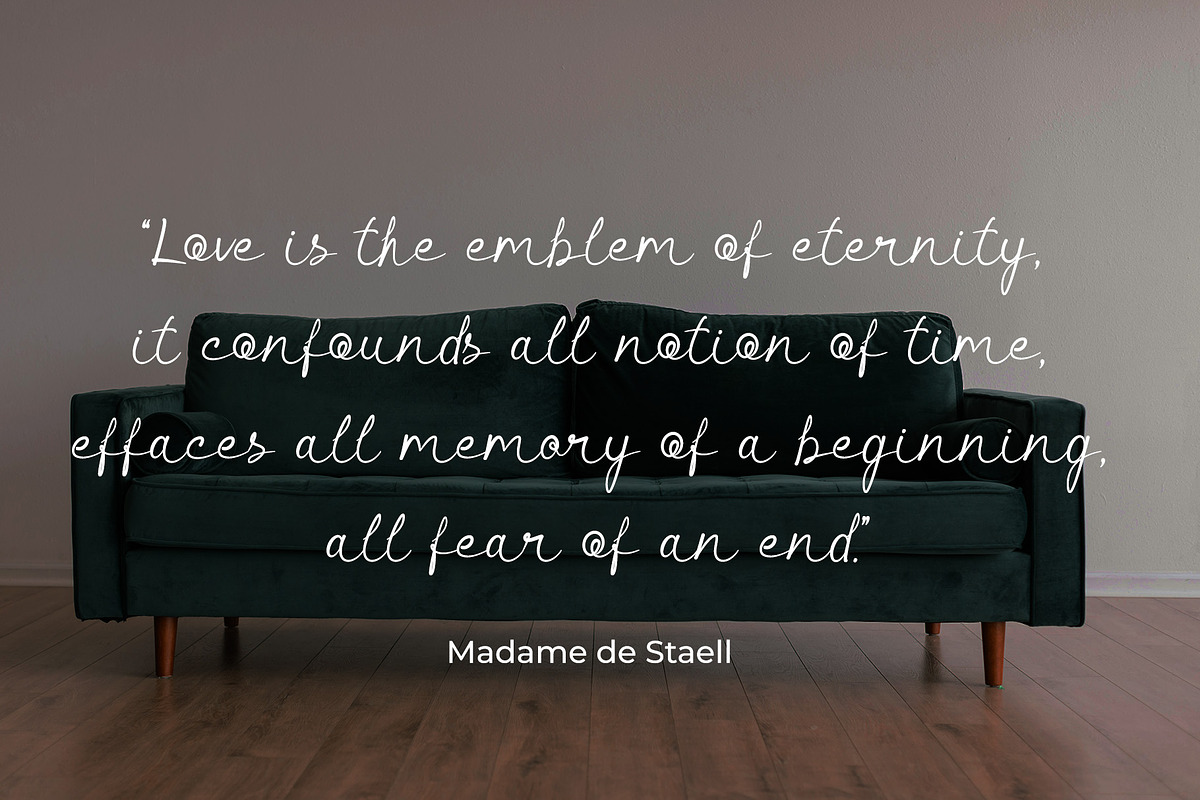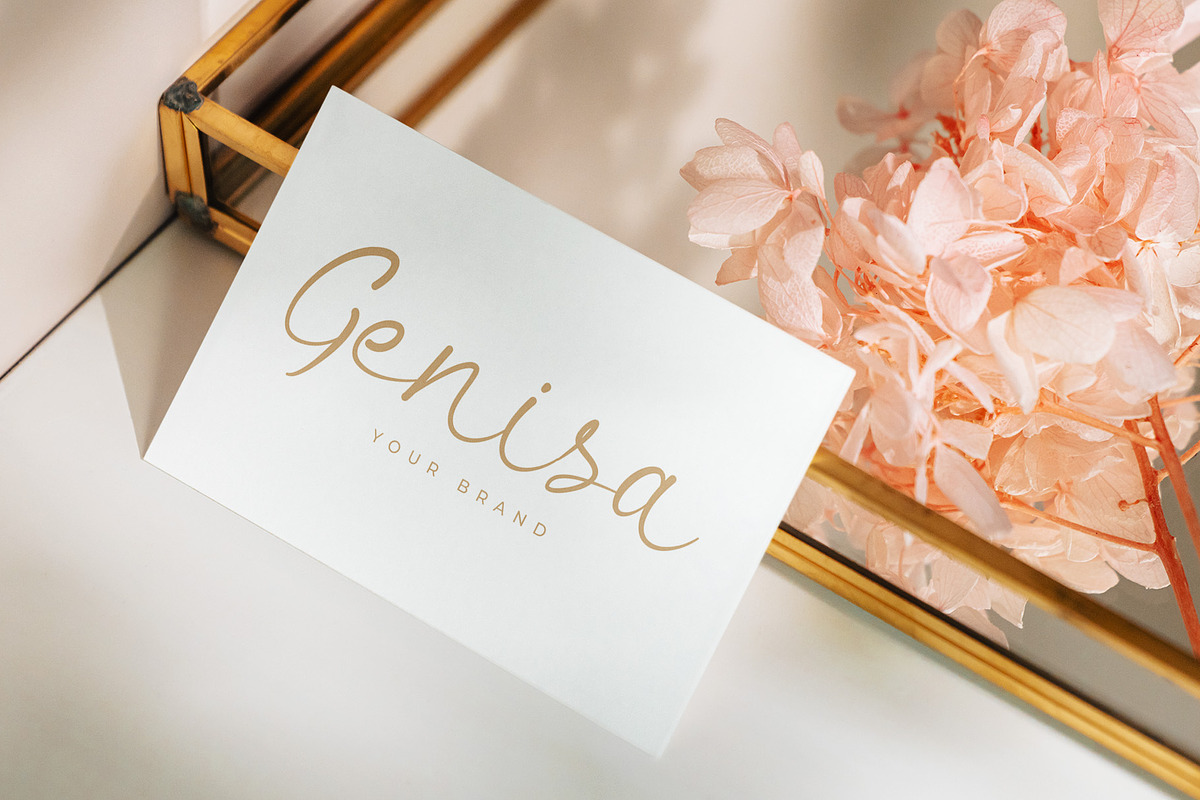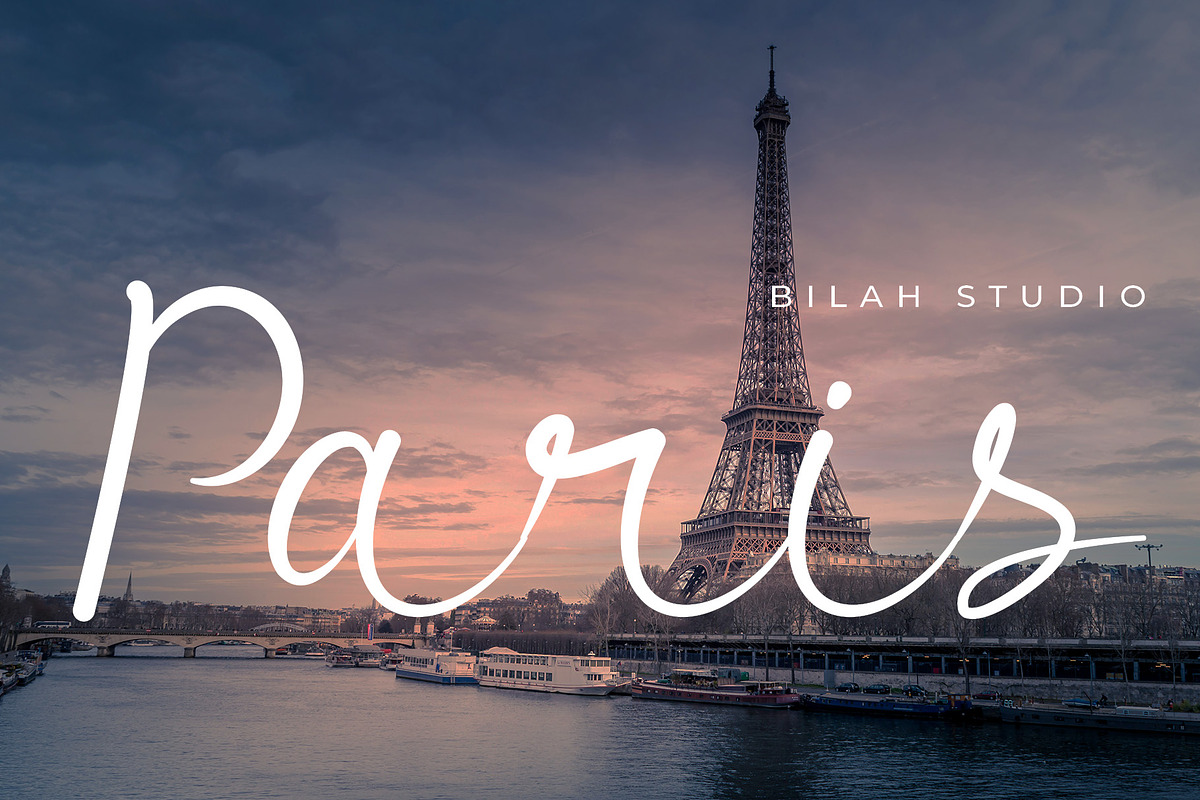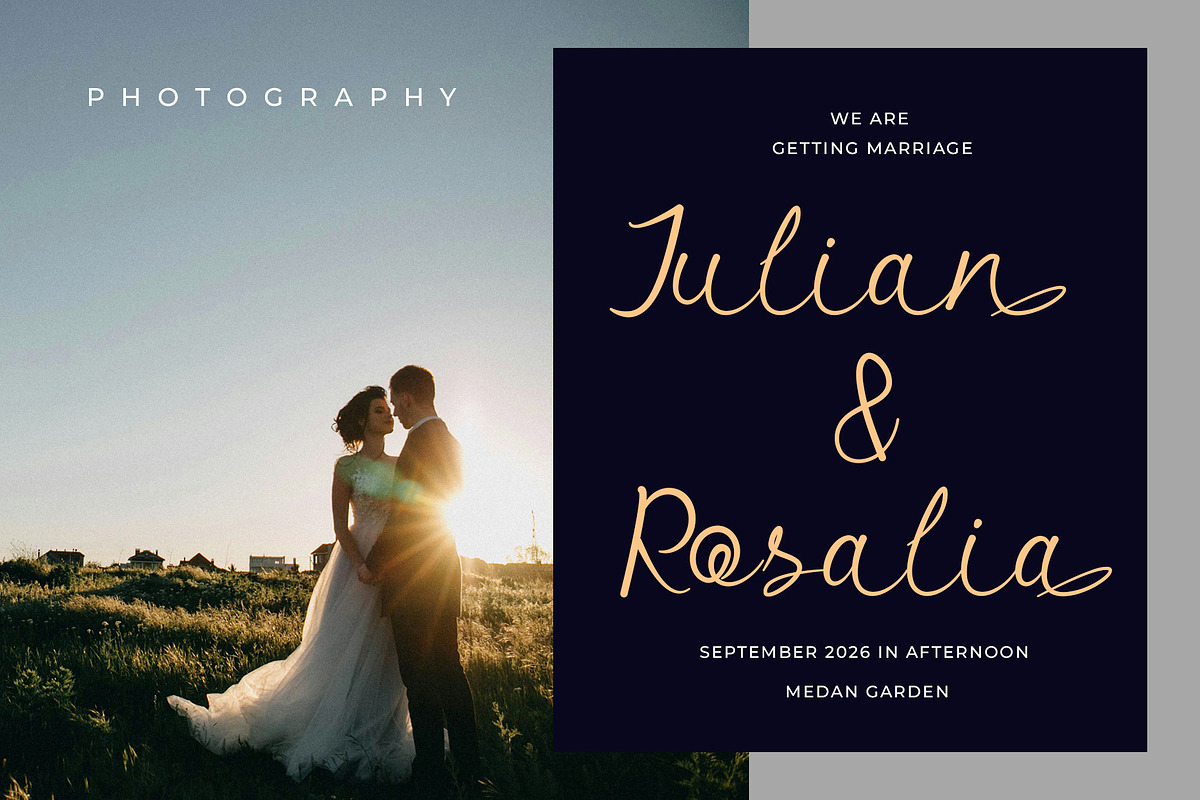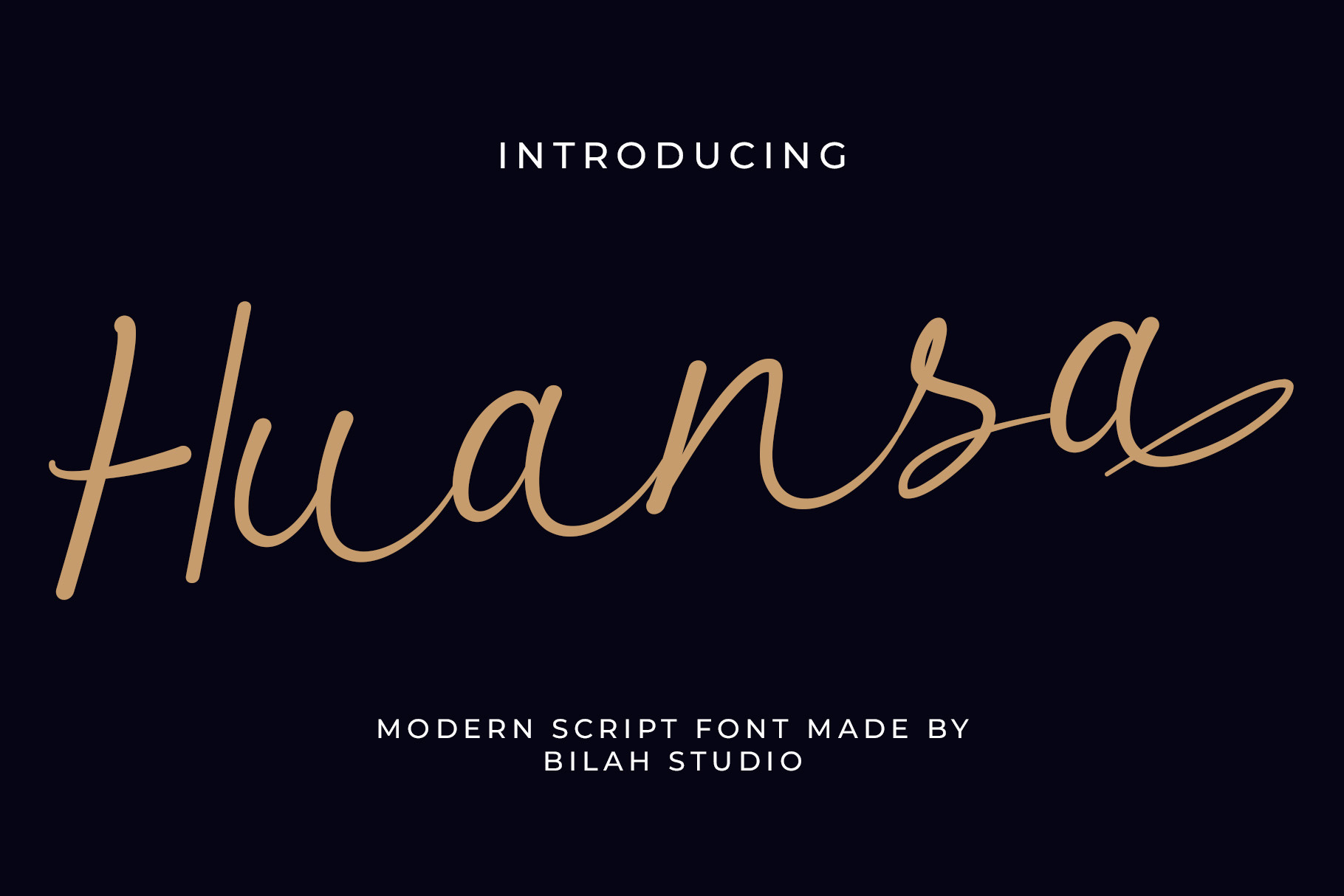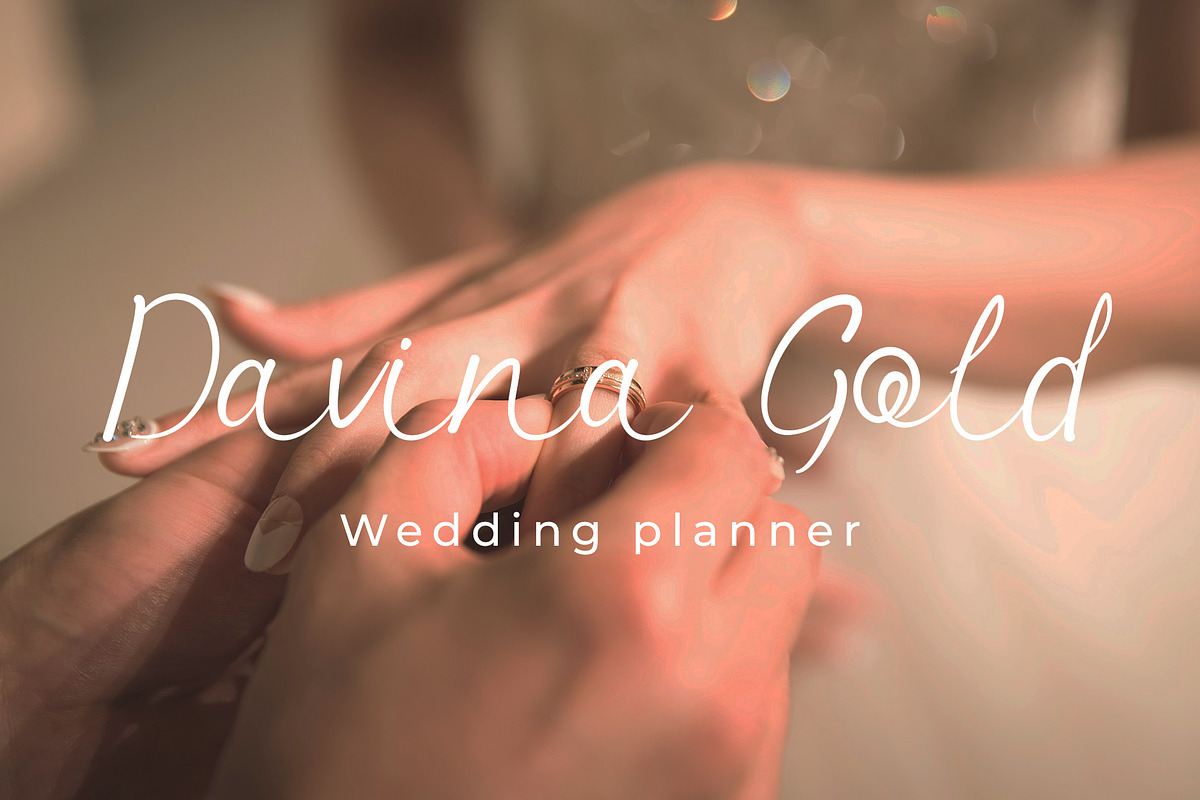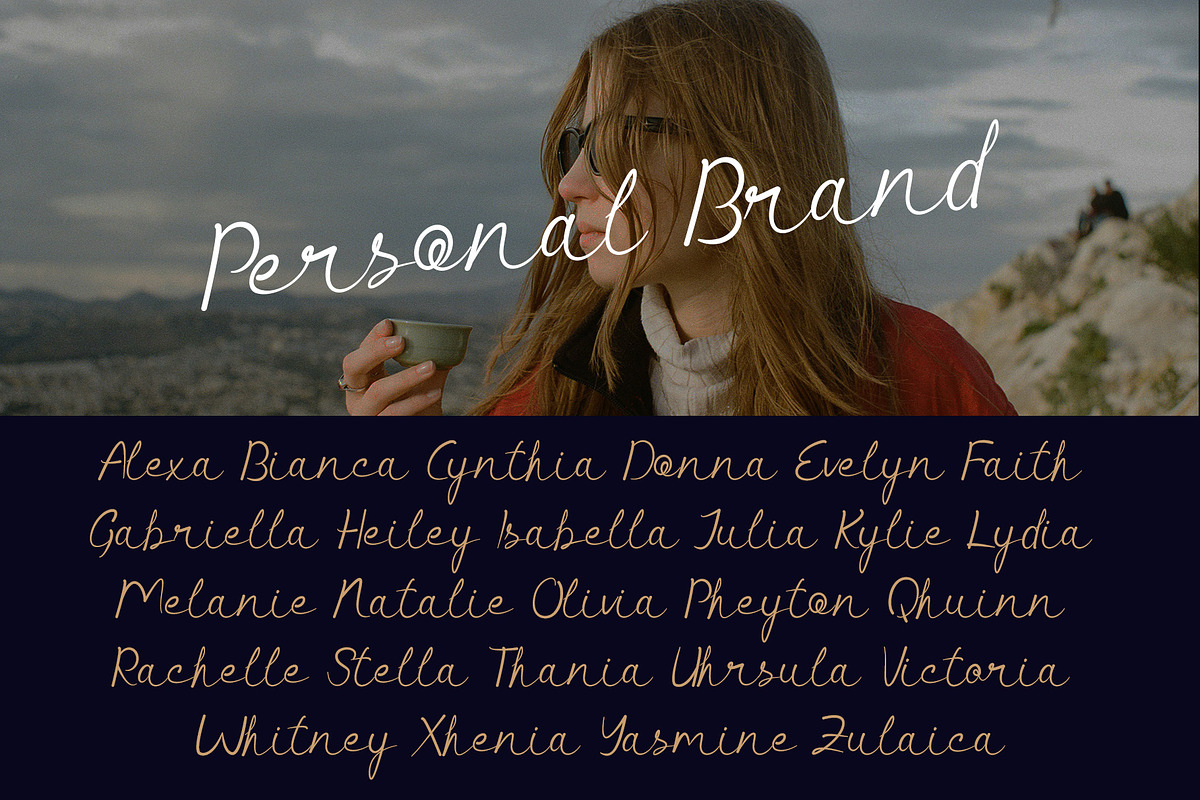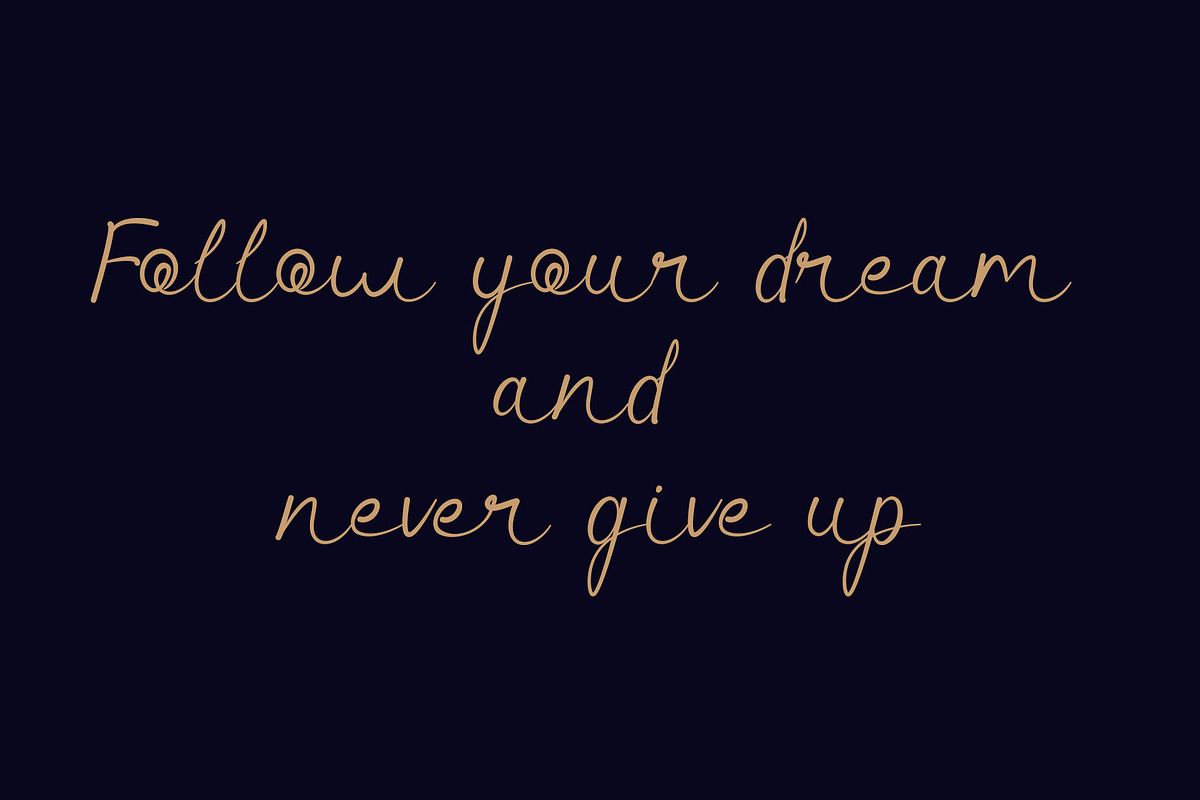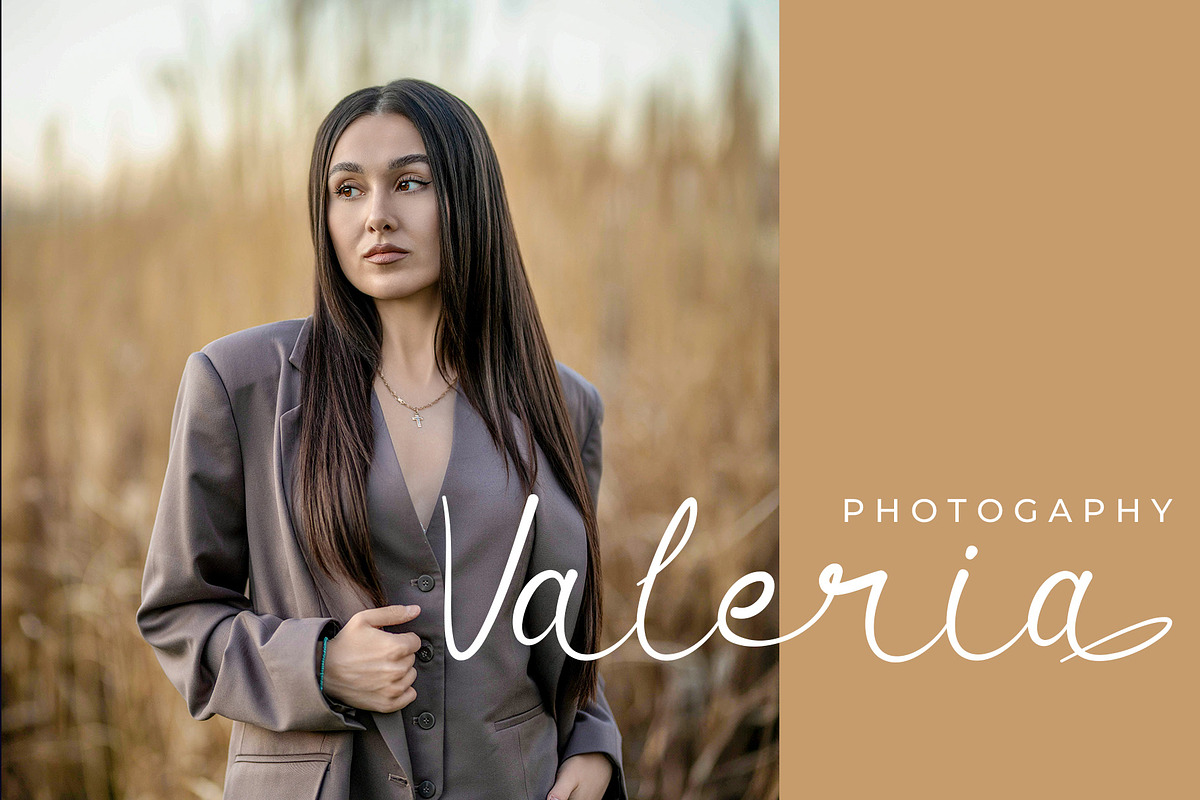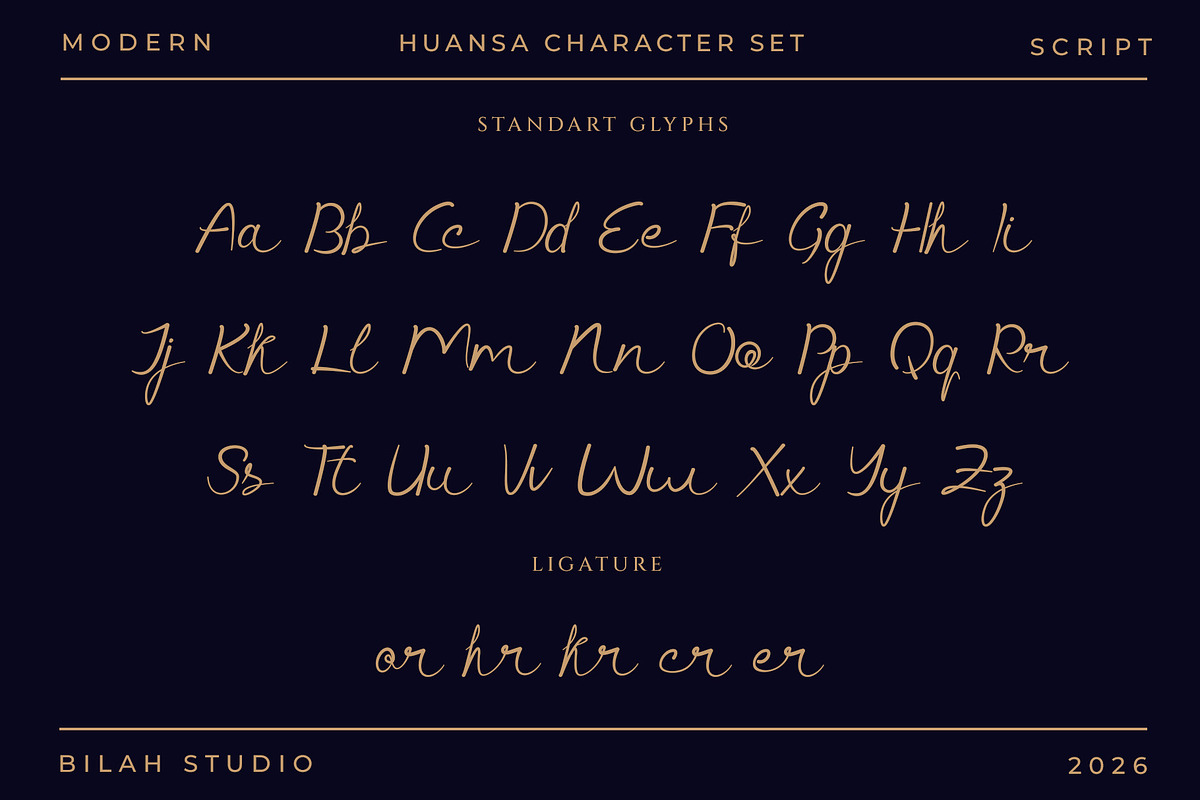
Huansa Modern Script Font
Huansa is a modern script font that exudes simplicity, elegance, and a contemporary vibe through its harmonious handwritten style. With its expressive strokes and graceful letterforms, the font creates a natural signature aesthetic that feels both personal and sophisticated.
Huansa is the perfect choice for a wide range of creative and modern design needs—including logos, headlines, covers, branding, invitations, wedding designs, display elements, magazines, social media content, advertisements, printed quotes, product packaging, corporate identity, product design, labels, photography, watermarks, special events, and any other project requiring a modern, minimalist touch.
Standart Glyphs
Numberial and Functional
Alternate and Ligature